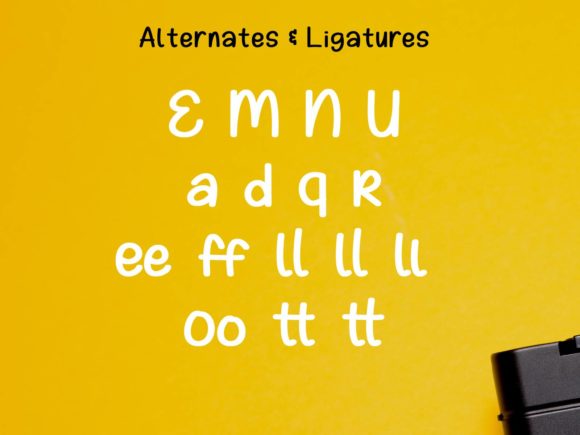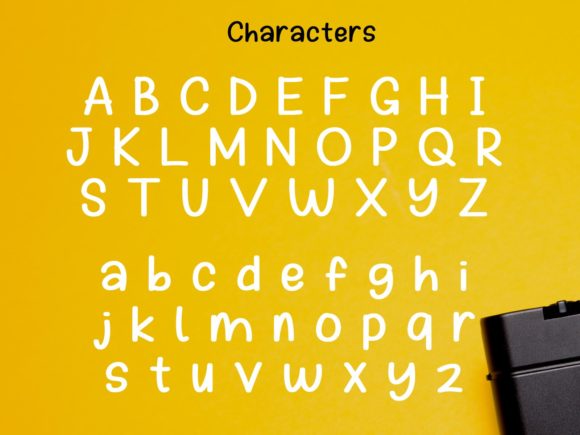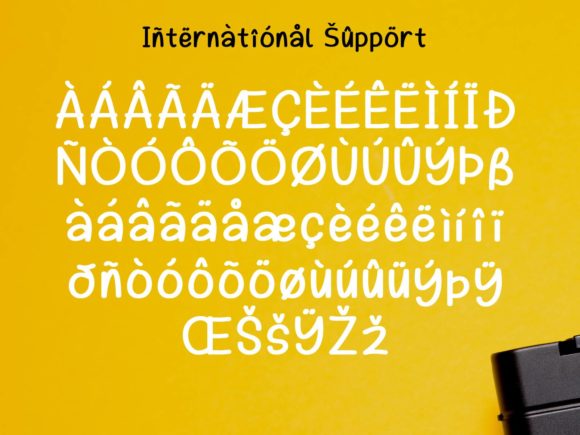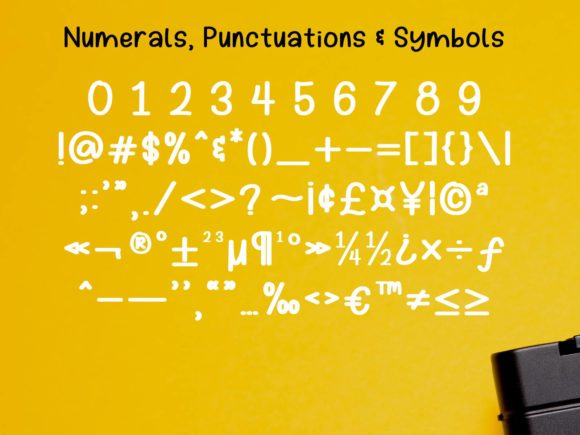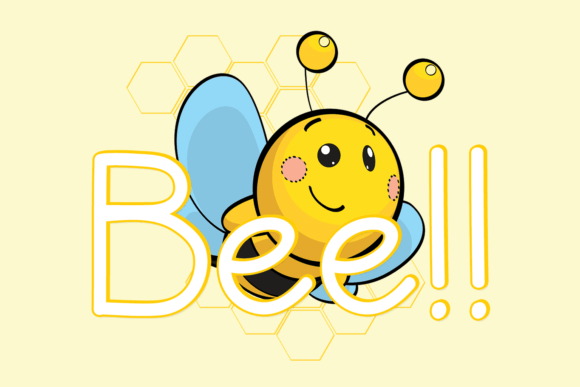
Adding a Touch of Bold to Your Craft
As designers, we’ve all been there – staring at a blank canvas, trying to bring our creative vision to life. It’s those moments when inspiration strikes, and we know exactly what’s missing. For me, it was the perfect font to match the playful, whimsical feel of my latest craft project. And that’s where the Butterbean Font comes in – a thick and tasty display font that adds a bold, eye-catching vibe to any design.
This versatile font is perfect for crafters, designers, and makers looking to add a personal touch to their projects. Whether you’re creating custom invitations, designing a logo, or simply adding a decorative element to a card, the Butterbean Font is sure to make a statement. Its unique, playful style makes it a valuable asset for designers looking to add some personality to their work.
Key Features of Butterbean Font
• Font Family: Butterbean is a sans-serif font family designed for digital use.
• Size: Butterbean is available in 7 font weights, ranging from Light to Extra Bold.
• Unique Characteristics: Butterbean features a distinctive rounded shape, friendly feel, and open counters.
Butterbean Font Review
Overall, I think the Butterbean font is a sweet addition to any design project ✨. Its playful and whimsical feel makes it perfect for children’s books, greeting cards, and other projects that require a touch of nostalgia.
• Unique and quirky feel that sets it apart from other fonts
• Perfect for projects that require a playful and whimsical touch
• Has a lot of character and personality
• Works well in both print and digital applications
One thing that might be a concern is the font’s weight ⚠️. Some letters, especially the ‘a’ and ‘e’, can be quite light and may not be legible in certain contexts. Additionally, the font’s kerning could be improved, especially between letters like ‘o’ and ‘i’.
I would recommend the Butterbean font for projects where a playful and whimsical feel is required. However, it’s essential to be aware of its limitations, such as its weight and kerning. With careful selection and styling, the Butterbean font can be a fantastic addition to any design project.
Getting the Most Out of Butterbean Font
Here are some tips for getting the most out of the Butterbean font:
• Use it for titles and headings to add a touch of whimsy to your designs.
• Pair it with other fonts to create a unique and playful look.
• Experiment with different font sizes and colors to create visual interest.
The Butterbean font is commonly used in: